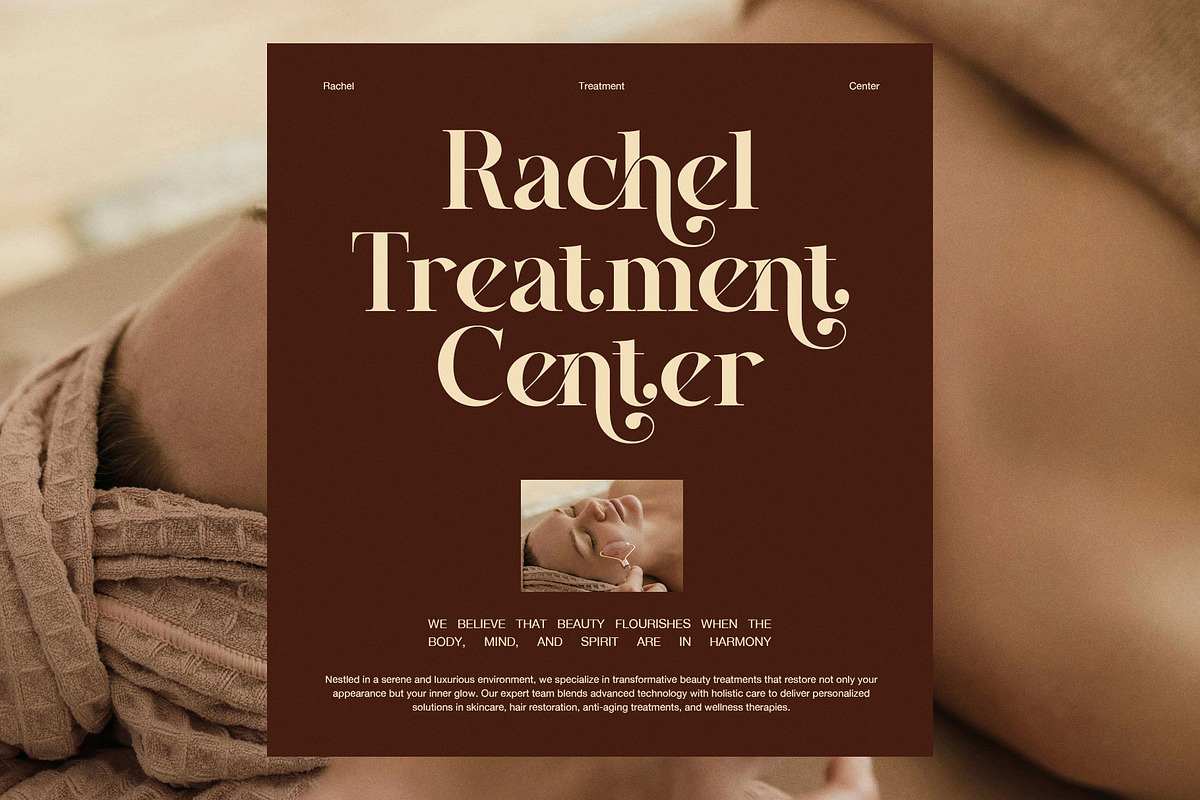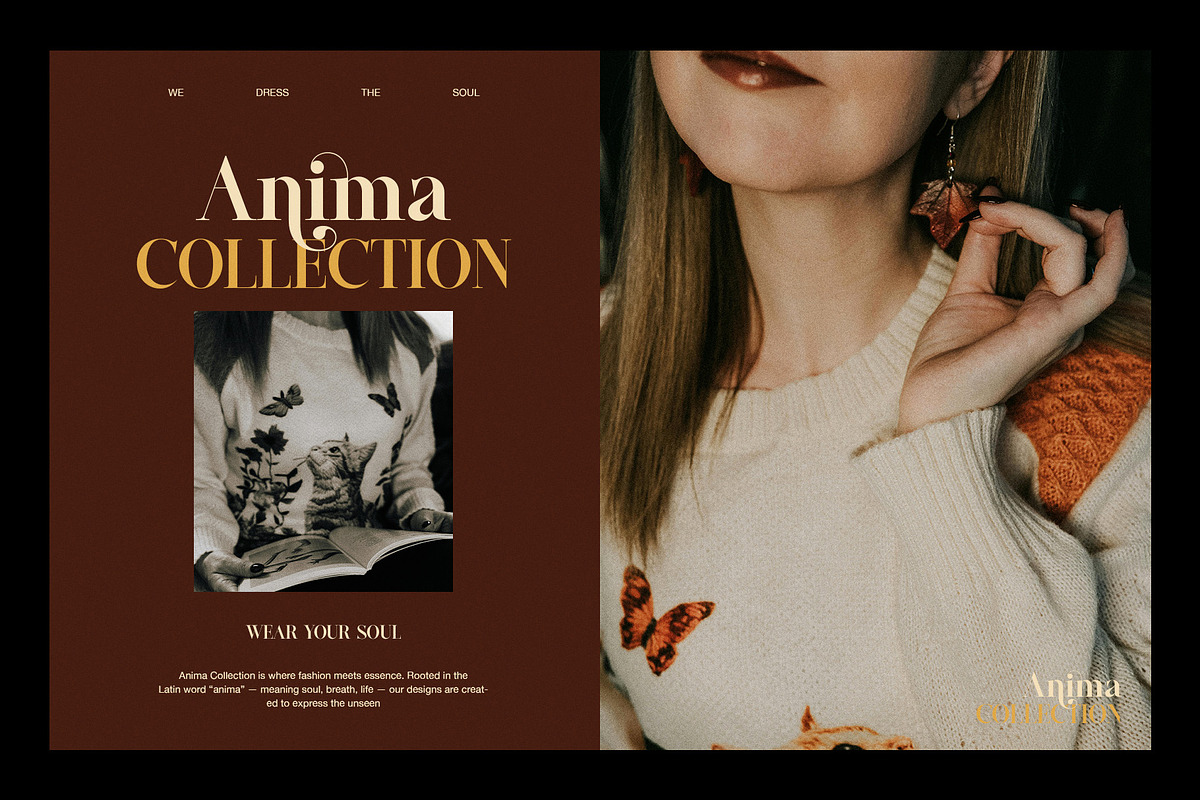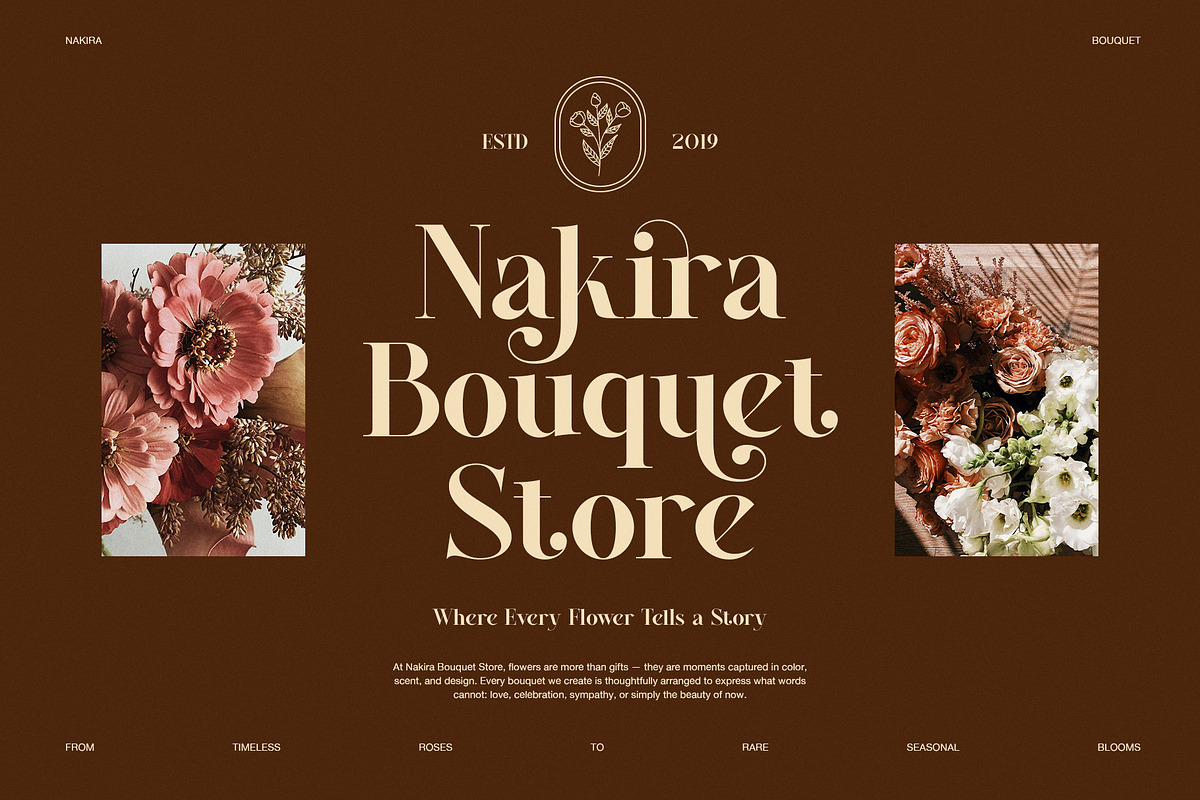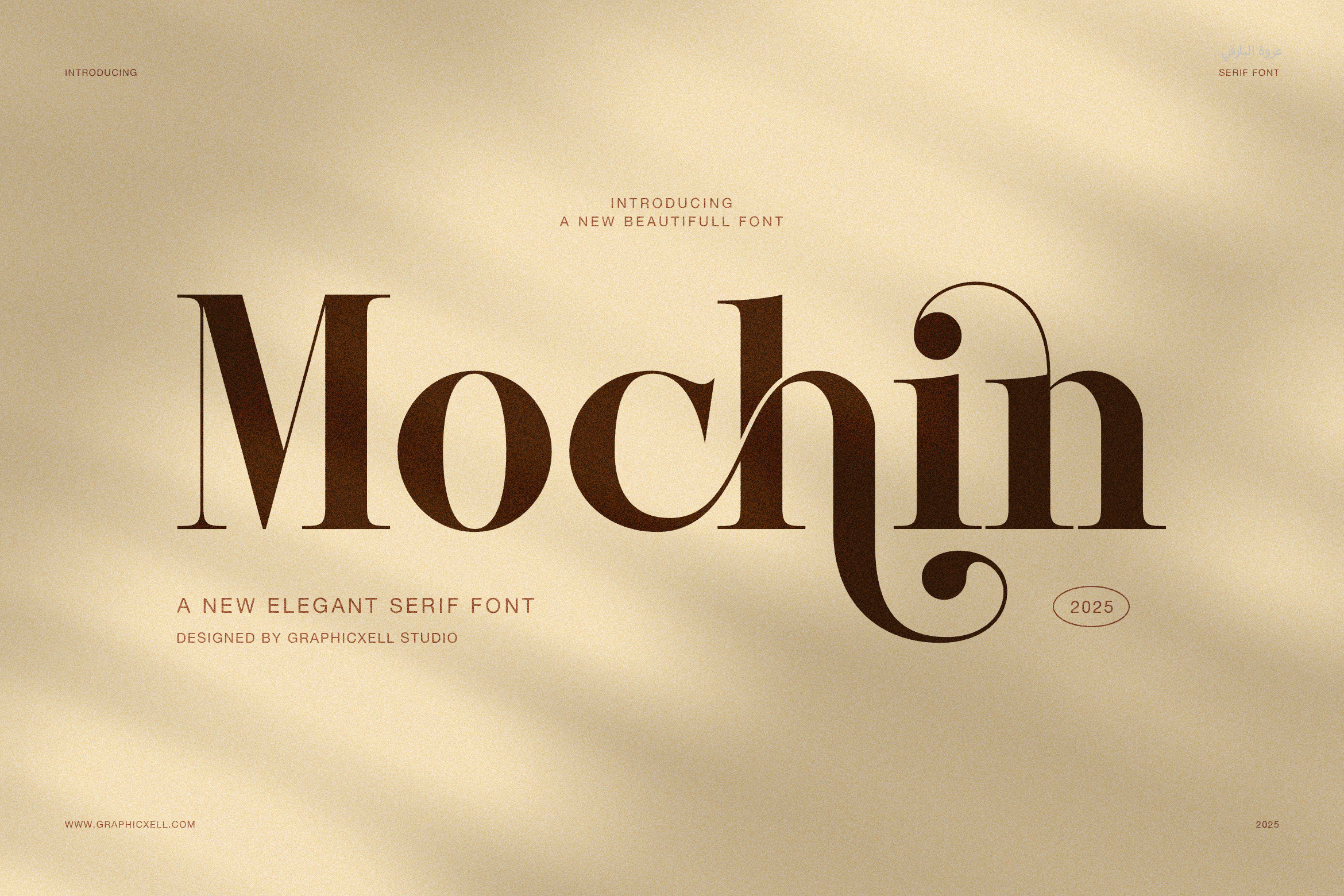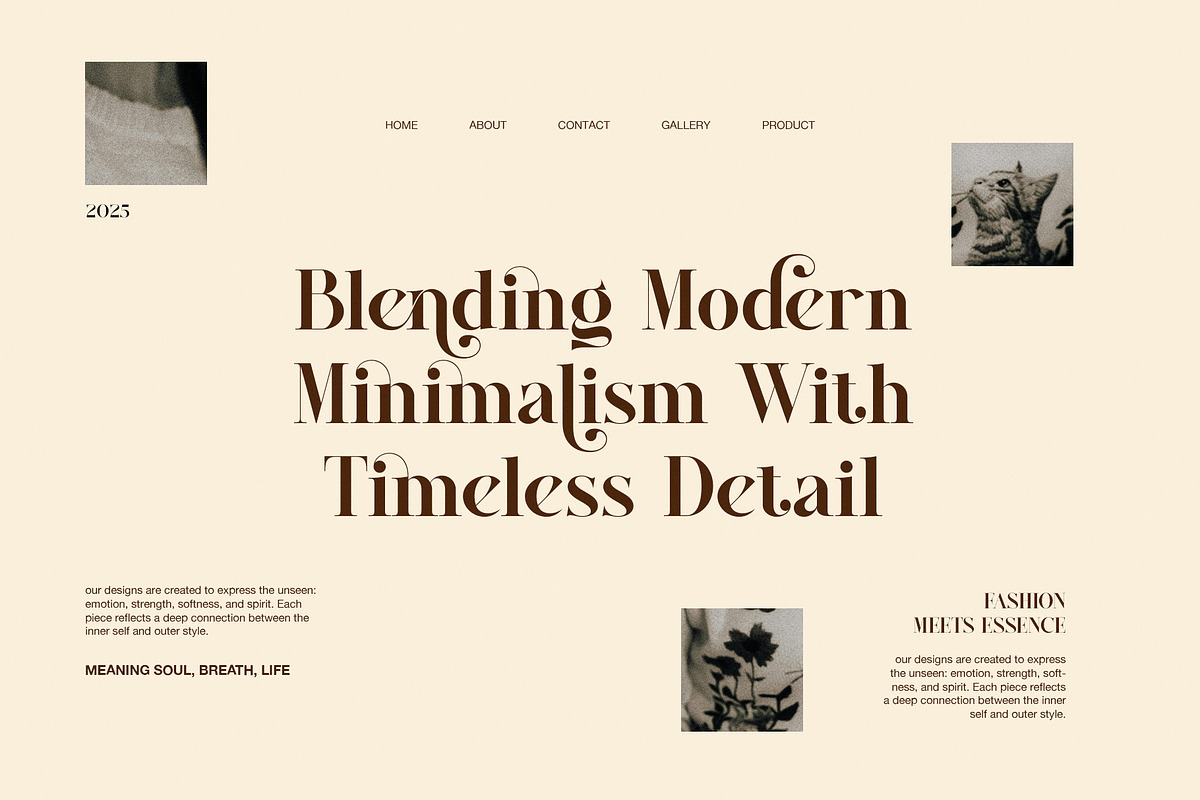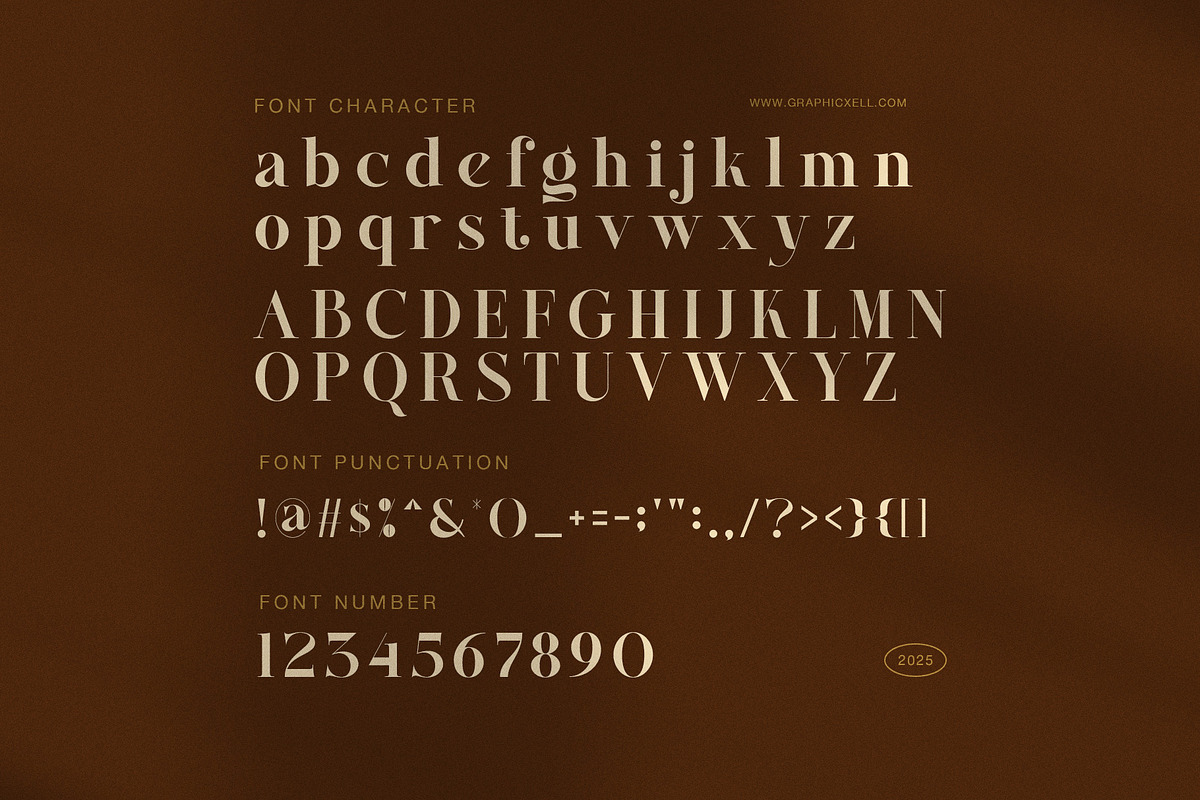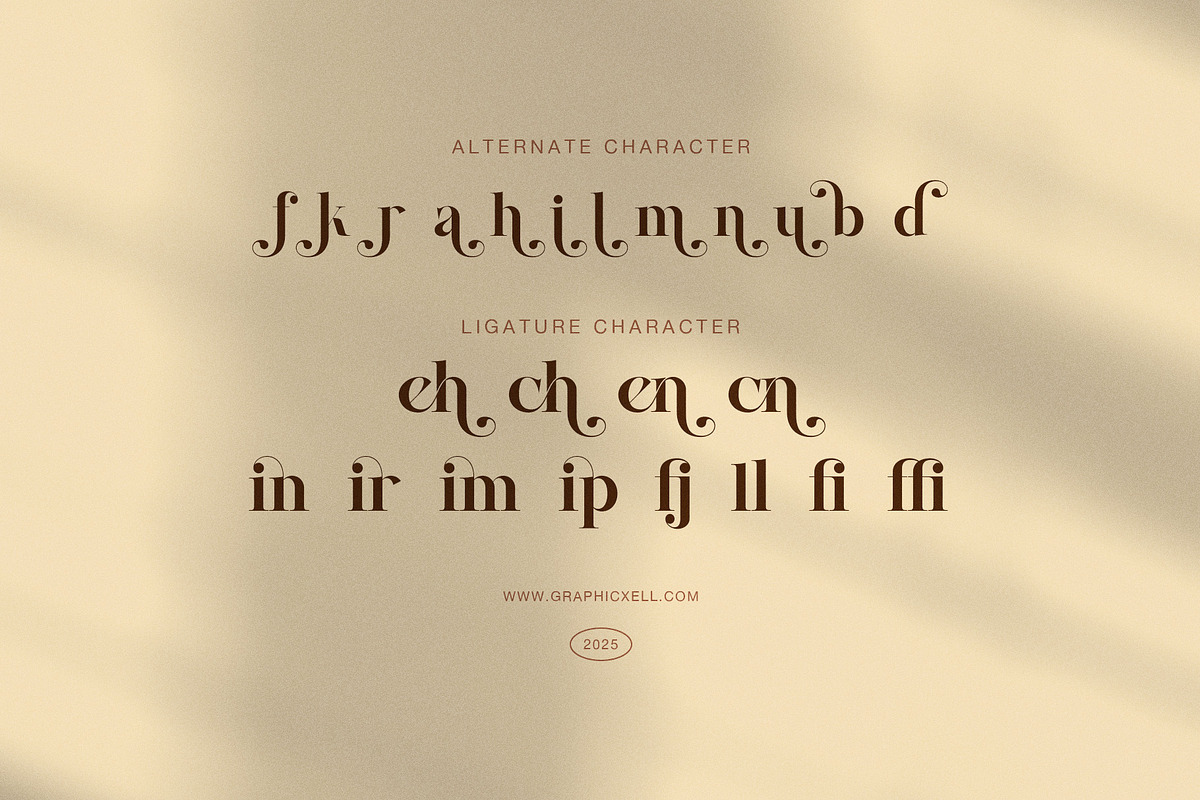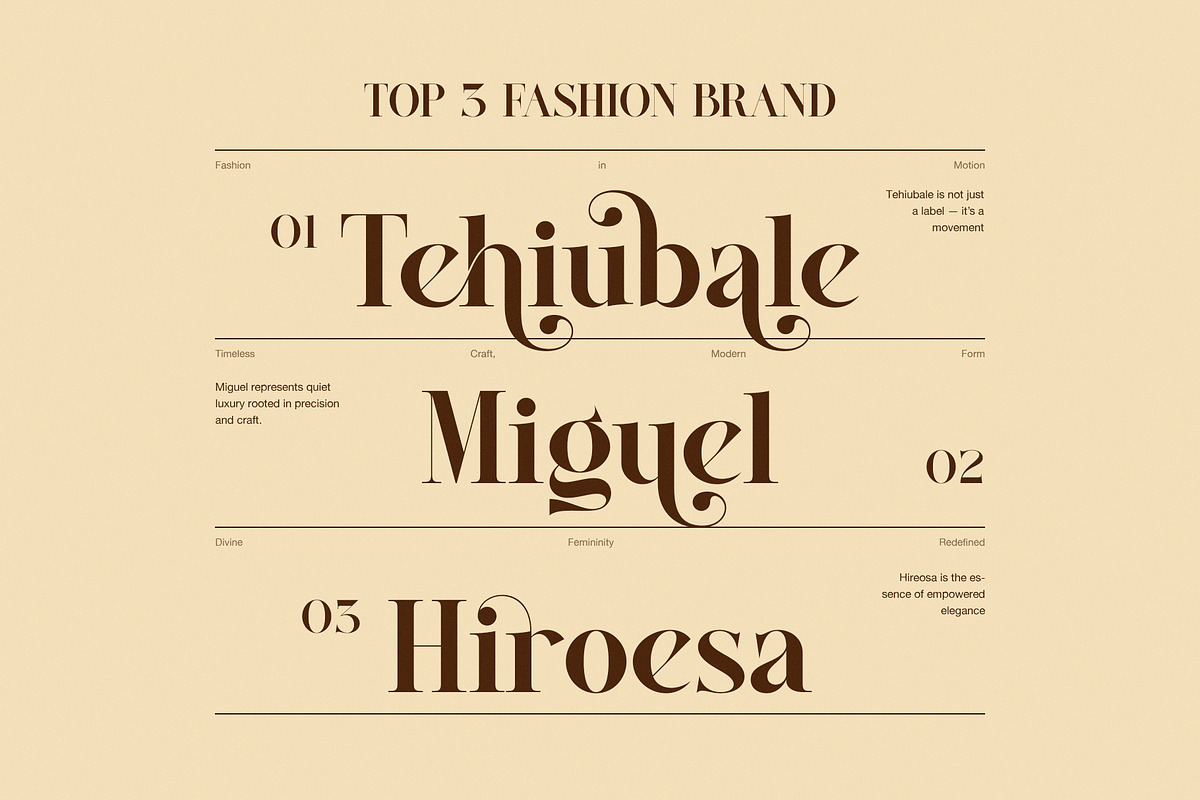
Mochin Elegant Serif Font
Discover Mochin Elegant Serif Font, a beautifully balanced serif that blends modern elegance with timeless charm. Its graceful curves and sharp edges create a confident look, while its soft contrast keeps every word readable and stylish. Therefore, it suits brands that want to appear luxurious, professional, and creative all at once.
You can easily use Mochin for fashion logos, product packaging, editorial layouts, or wedding invitations. Moreover, its refined structure and delicate details give any project a touch of sophistication. Each letterform feels intentional and harmonious, allowing your text to stand out without overwhelming the overall design.
Key Benefits and Features:
Elegant uppercase and lowercase letters for branding versatility
Smooth high-contrast serifs for a modern yet classic look
Ideal for editorial design, websites, logos, and packaging
Furthermore, Mochin stands out because it combines clarity with personality. Many serif fonts focus only on appearance; however, this one keeps functionality in mind. Therefore, it’s easy to pair with minimalist sans-serif fonts to achieve a balanced, high-end layout. As a result, your work appears refined, readable, and cohesive.
In conclusion, Mochin Elegant Serif Font helps designers express elegance with confidence. It brings beauty, professionalism, and flexibility together in one typeface. So, start using Mochin today and transform your creative projects into sophisticated works of art.